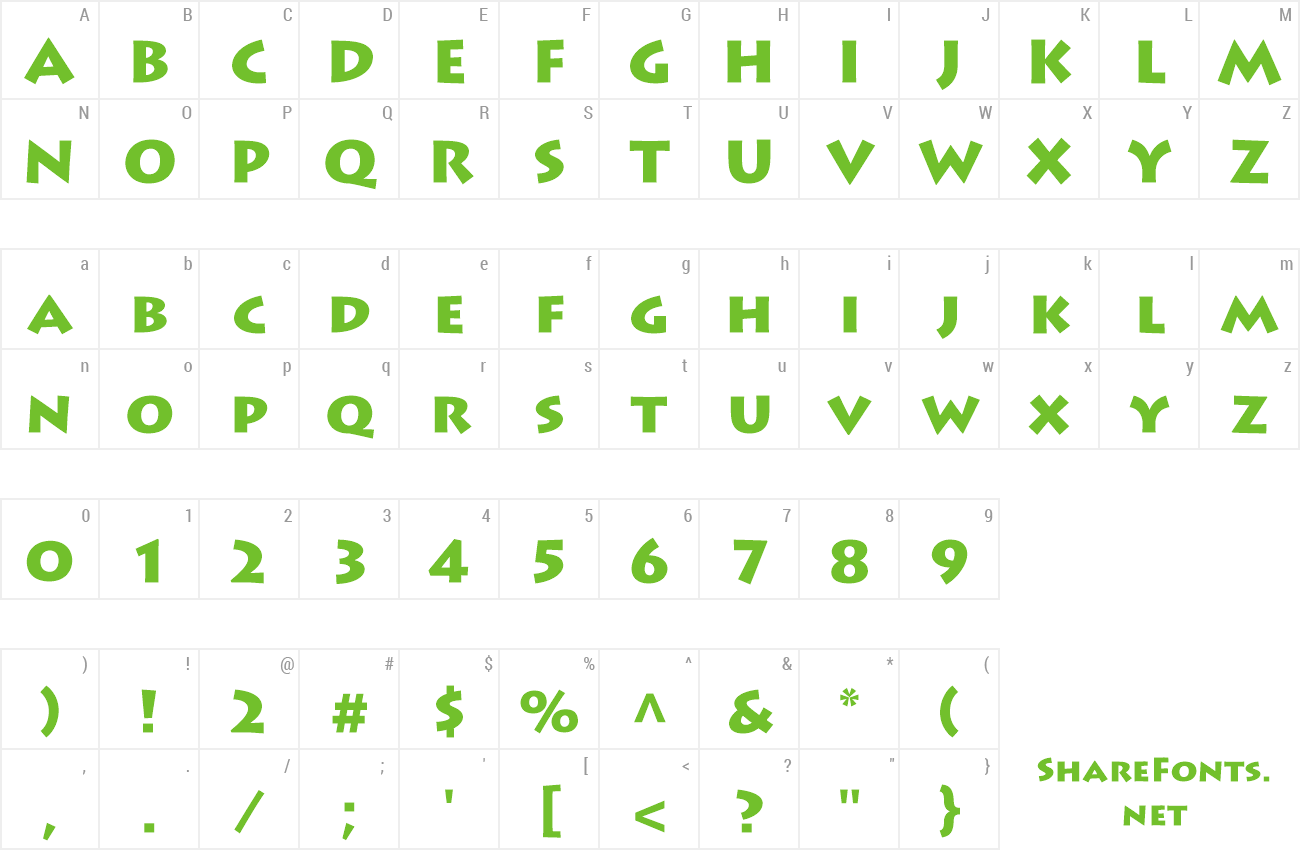
Lithos Pro Font
Lithos Pro Font - Web lithos pro is a sans serif display font family designed by carol twombly and released by adobe. It includes six styles of fonts in. Web explore lithos designed by carol twombly at adobe fonts. A sans serif typeface with 5 styles, available from adobe fonts for.
Web lithos pro is a sans serif display font family designed by carol twombly and released by adobe. It includes six styles of fonts in. A sans serif typeface with 5 styles, available from adobe fonts for. Web explore lithos designed by carol twombly at adobe fonts.
It includes six styles of fonts in. Web explore lithos designed by carol twombly at adobe fonts. Web lithos pro is a sans serif display font family designed by carol twombly and released by adobe. A sans serif typeface with 5 styles, available from adobe fonts for.
Web explore lithos designed by carol twombly at adobe fonts. A sans serif typeface with 5 styles, available from adobe fonts for. Web lithos pro is a sans serif display font family designed by carol twombly and released by adobe. It includes six styles of fonts in.
Web lithos pro is a sans serif display font family designed by carol twombly and released by adobe. It includes six styles of fonts in. Web explore lithos designed by carol twombly at adobe fonts. A sans serif typeface with 5 styles, available from adobe fonts for.
A sans serif typeface with 5 styles, available from adobe fonts for. It includes six styles of fonts in. Web explore lithos designed by carol twombly at adobe fonts. Web lithos pro is a sans serif display font family designed by carol twombly and released by adobe.
Web lithos pro is a sans serif display font family designed by carol twombly and released by adobe. Web explore lithos designed by carol twombly at adobe fonts. It includes six styles of fonts in. A sans serif typeface with 5 styles, available from adobe fonts for.
Web explore lithos designed by carol twombly at adobe fonts. A sans serif typeface with 5 styles, available from adobe fonts for. It includes six styles of fonts in. Web lithos pro is a sans serif display font family designed by carol twombly and released by adobe.
A sans serif typeface with 5 styles, available from adobe fonts for. Web lithos pro is a sans serif display font family designed by carol twombly and released by adobe. It includes six styles of fonts in. Web explore lithos designed by carol twombly at adobe fonts.
A sans serif typeface with 5 styles, available from adobe fonts for. It includes six styles of fonts in. Web lithos pro is a sans serif display font family designed by carol twombly and released by adobe. Web explore lithos designed by carol twombly at adobe fonts.
It includes six styles of fonts in. A sans serif typeface with 5 styles, available from adobe fonts for. Web lithos pro is a sans serif display font family designed by carol twombly and released by adobe. Web explore lithos designed by carol twombly at adobe fonts.
Web lithos pro is a sans serif display font family designed by carol twombly and released by adobe. A sans serif typeface with 5 styles, available from adobe fonts for. It includes six styles of fonts in. Web explore lithos designed by carol twombly at adobe fonts.
Web Lithos Pro Is A Sans Serif Display Font Family Designed By Carol Twombly And Released By Adobe.
It includes six styles of fonts in. Web explore lithos designed by carol twombly at adobe fonts. A sans serif typeface with 5 styles, available from adobe fonts for.